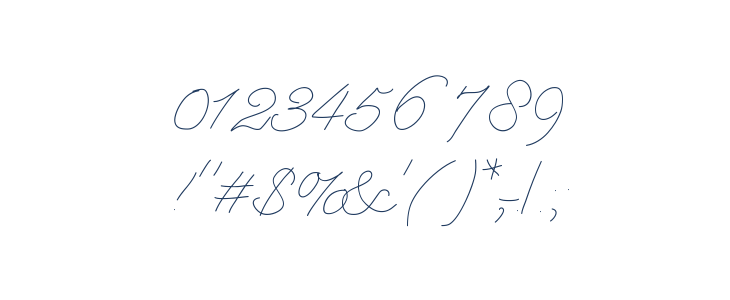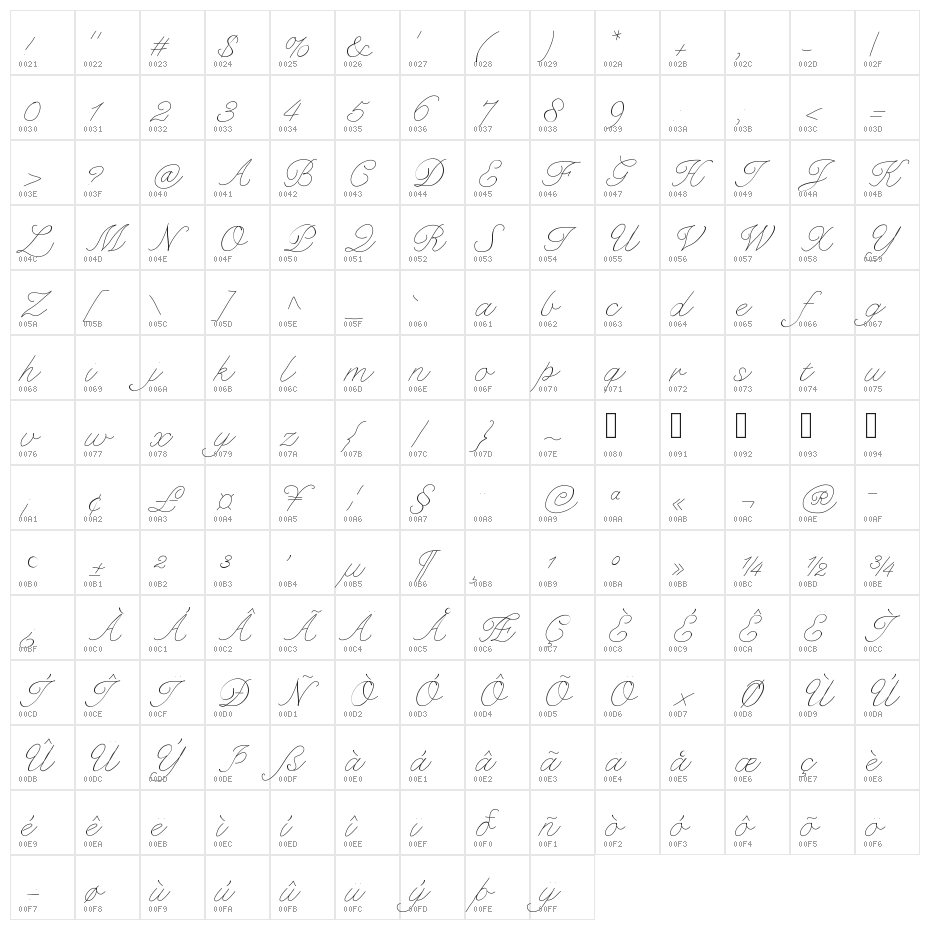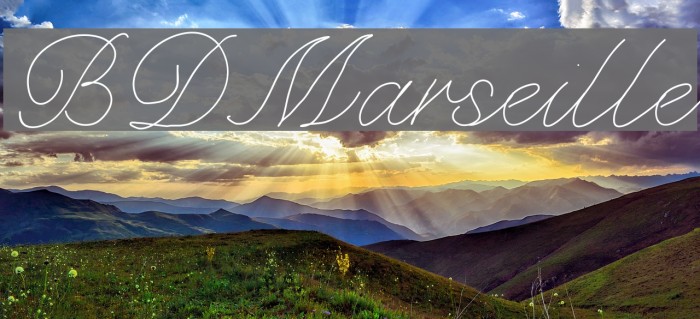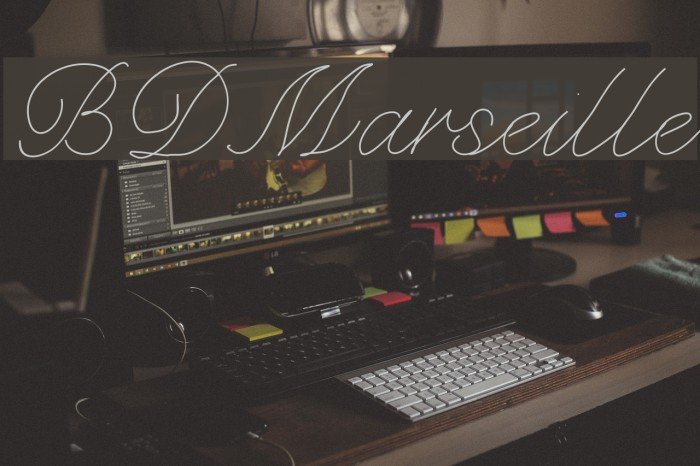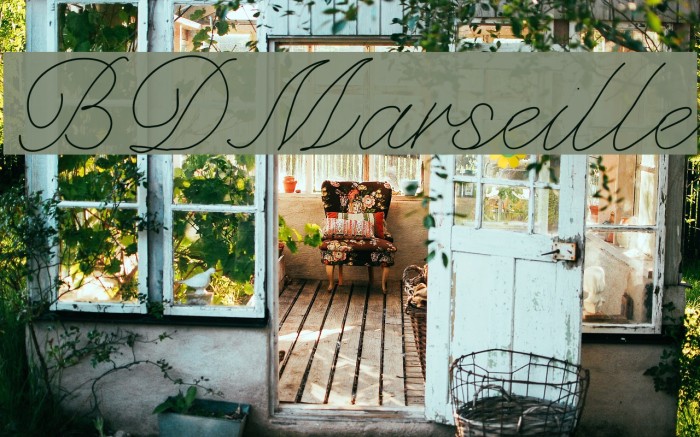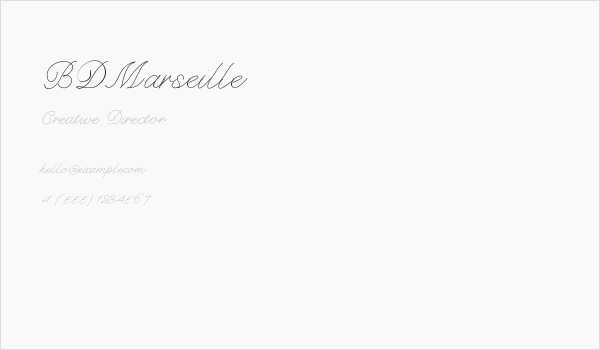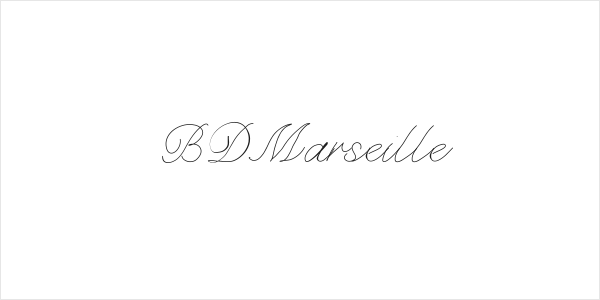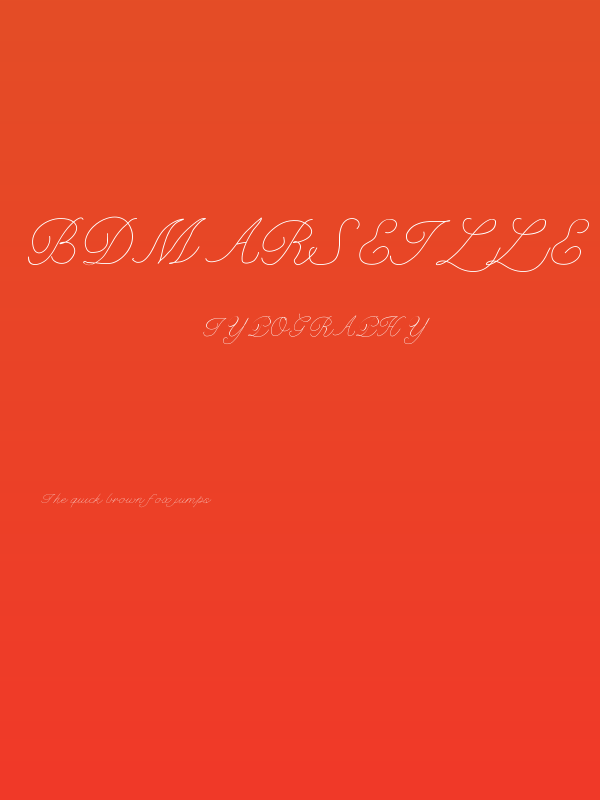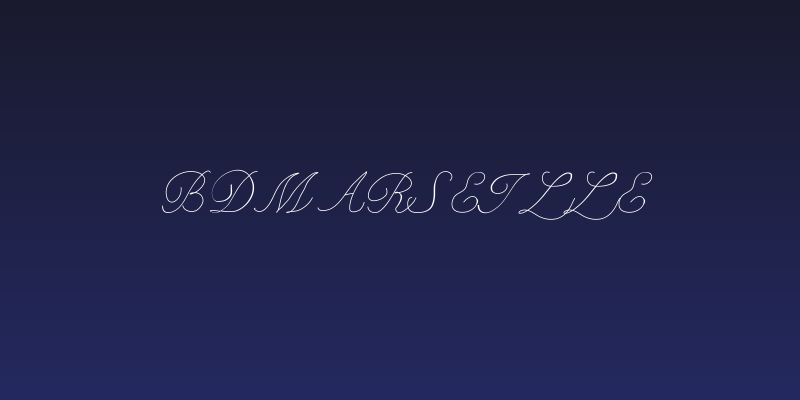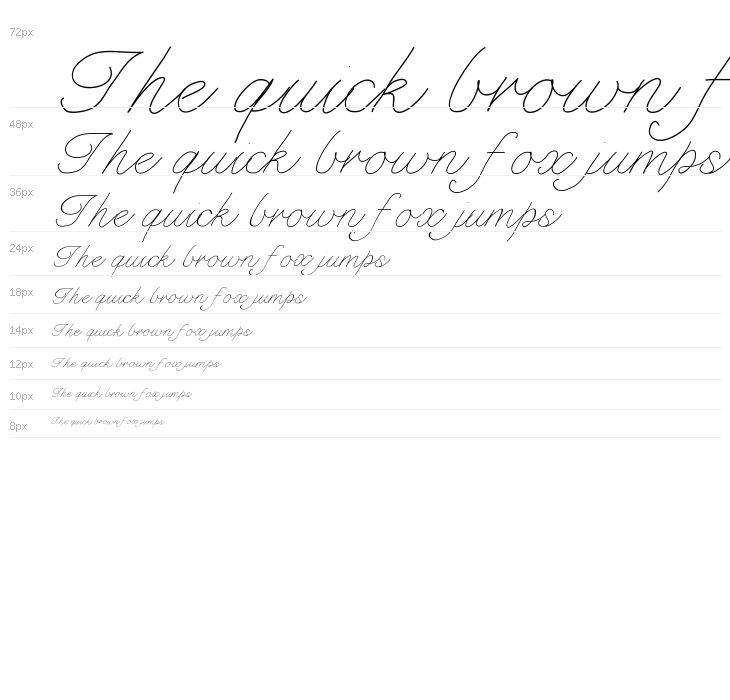
BDMarseille Font
BDMarseille Description
This elegant script font features flowing, cursive letterforms with a refined and sophisticated appearance. The characters are interconnected, creating a seamless and fluid look. The uppercase letters are slightly more ornate, with delicate loops and swirls, while the lowercase letters maintain a consistent slant and smooth curves. The numerals and special characters complement the overall style, adding to the font's versatility. This font exudes a sense of grace and formality, making it ideal for projects that require a touch of elegance.
| Overall Style | Elegant, Formal |
| Use Case | Invitations, Branding, Packaging |
| Proposed Projects | Wedding invitations, formal event programs, elegant branding, and luxury product packaging. |